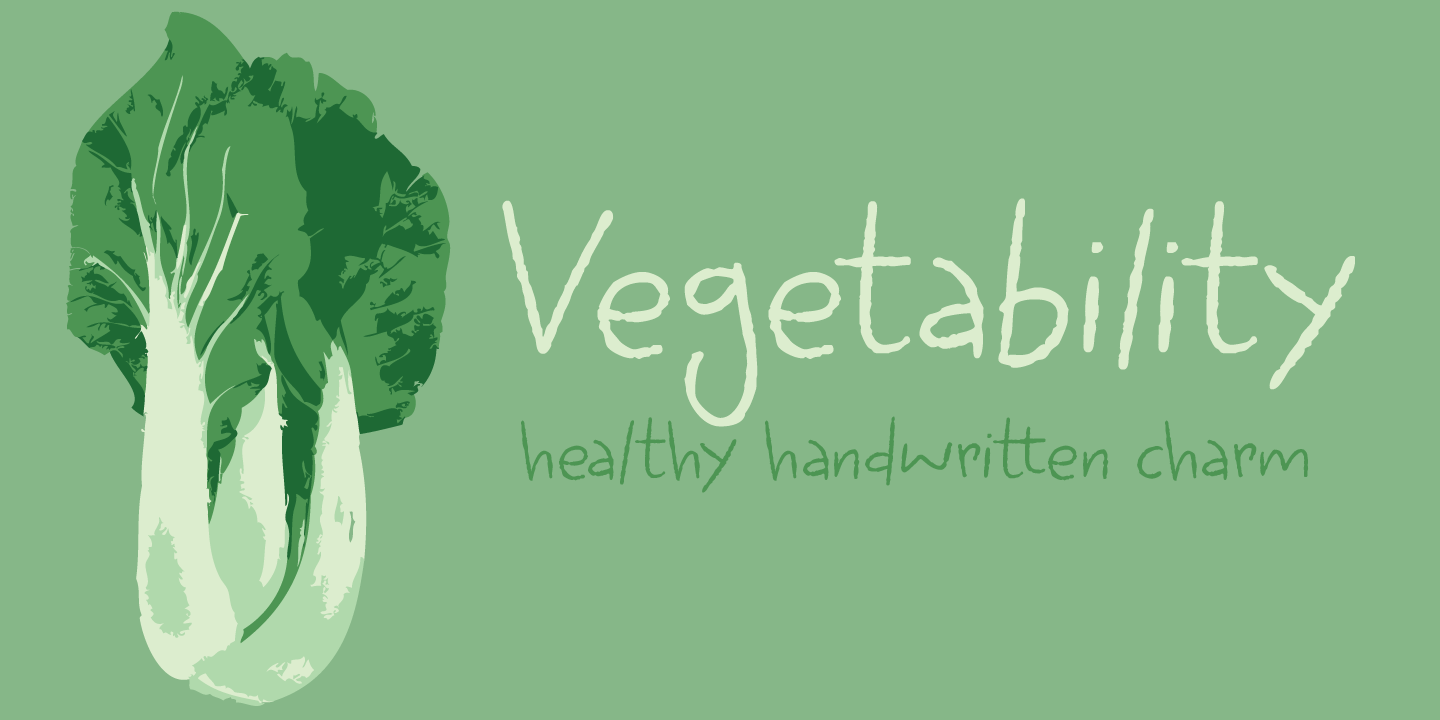
The Vegetability Font is an excellent choice for designs that demand a fresh, organic, and often handcrafted aesthetic, perfect for conveying natural goodness and healthy living. Imagine it gracing the packaging of organic produce, adding a wholesome and inviting feel to farmer's market signage, or bringing a distinctive, earthy vibe to vegetarian recipe blogs. It's also perfectly suited for captivating menus for farm-to-table restaurants, unique branding for eco-friendly initiatives, and any project where you want to evoke a sense of natural authenticity, freshness, and sustainable living. With its characteristic rounded forms and often subtly irregular appearance, the Vegetability Font is ideal for projects that aim for visual warmth and a memorable, wholesome impression.
What makes the Vegetability Font truly exciting is its ability to instantly project a sense of natural vitality and an endearing personality. It feels genuinely crafted with a playful spirit, instantly giving your designs a warm and inviting quality. This font often features soft, rounded edges, subtle imperfections, or a charmingly organic baseline that adds character and warmth, setting it apart from more rigid typefaces. It's perfect for establishing a brand identity that feels fresh, imaginative, and genuinely unique, ensuring your visual communication is not just seen, but appreciated for its authentic and cheerful character. The Vegetability Font Free Download offers a fantastic opportunity to infuse your projects with this distinctive spirit.
The Vegetability Font family is typically designed to offer versatility while maintaining its signature fresh and organic style. While specific family members can vary, you can often expect to find:
• Vegetability Regular
• Vegetability Bold (for added emphasis and powerful headlines)
• Vegetability Outline (for a unique display effect, adding depth)
• Vegetability Textured (or Distressed, for an authentic handcrafted or earthy feel)
• Vegetability Italic (for a slanted, dynamic look)
These variations provide flexibility for different design applications, allowing you to create engaging visual hierarchies and maintain a consistent, charming aesthetic across all your projects.